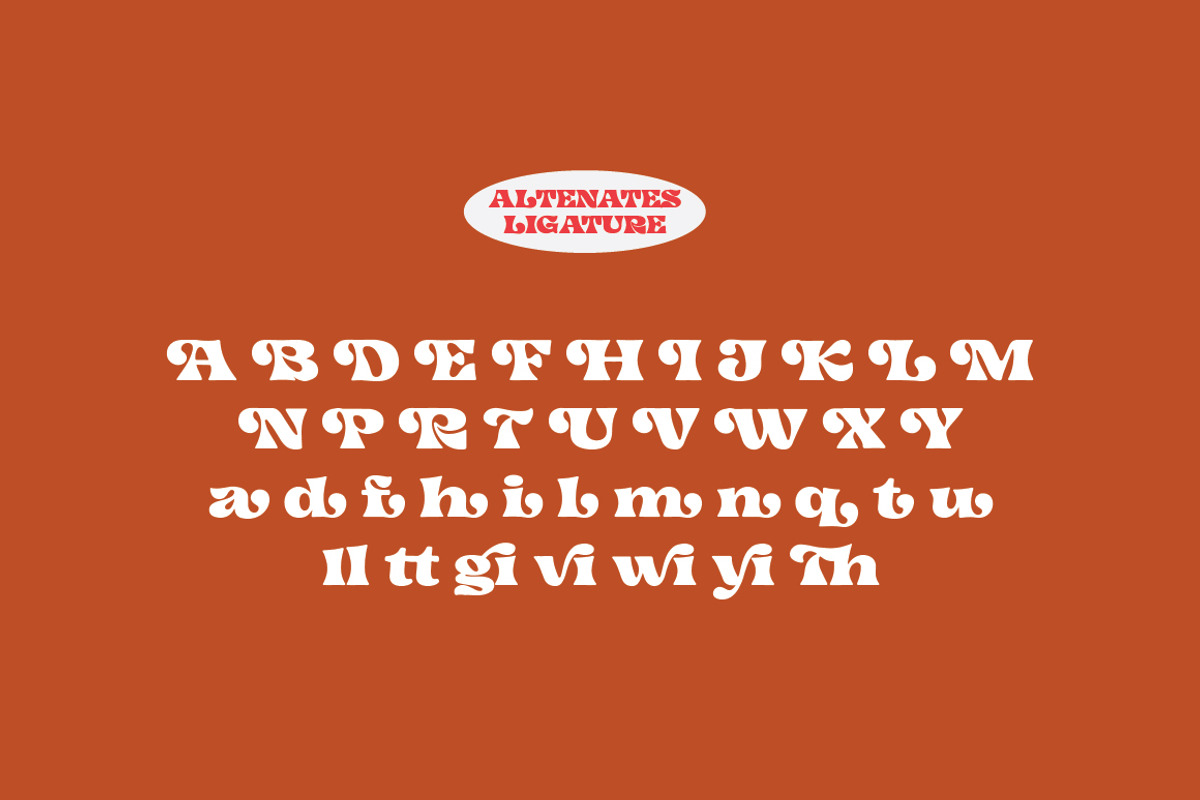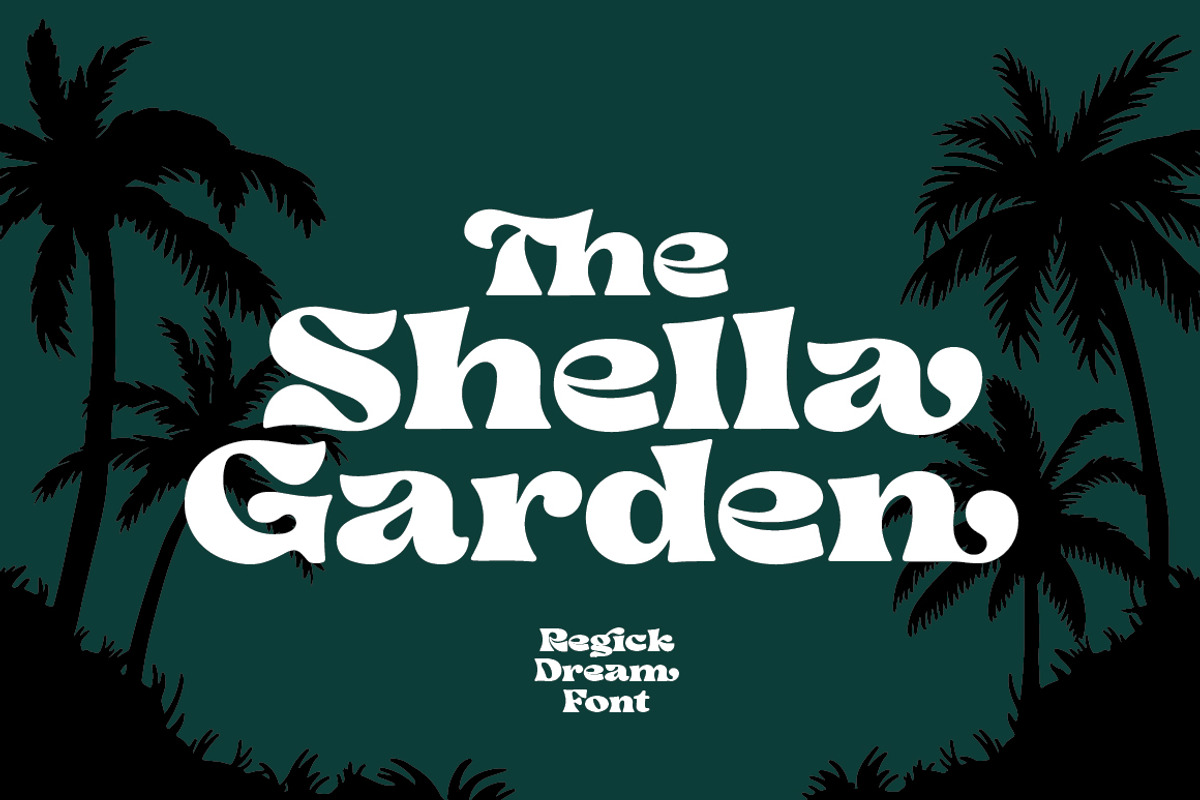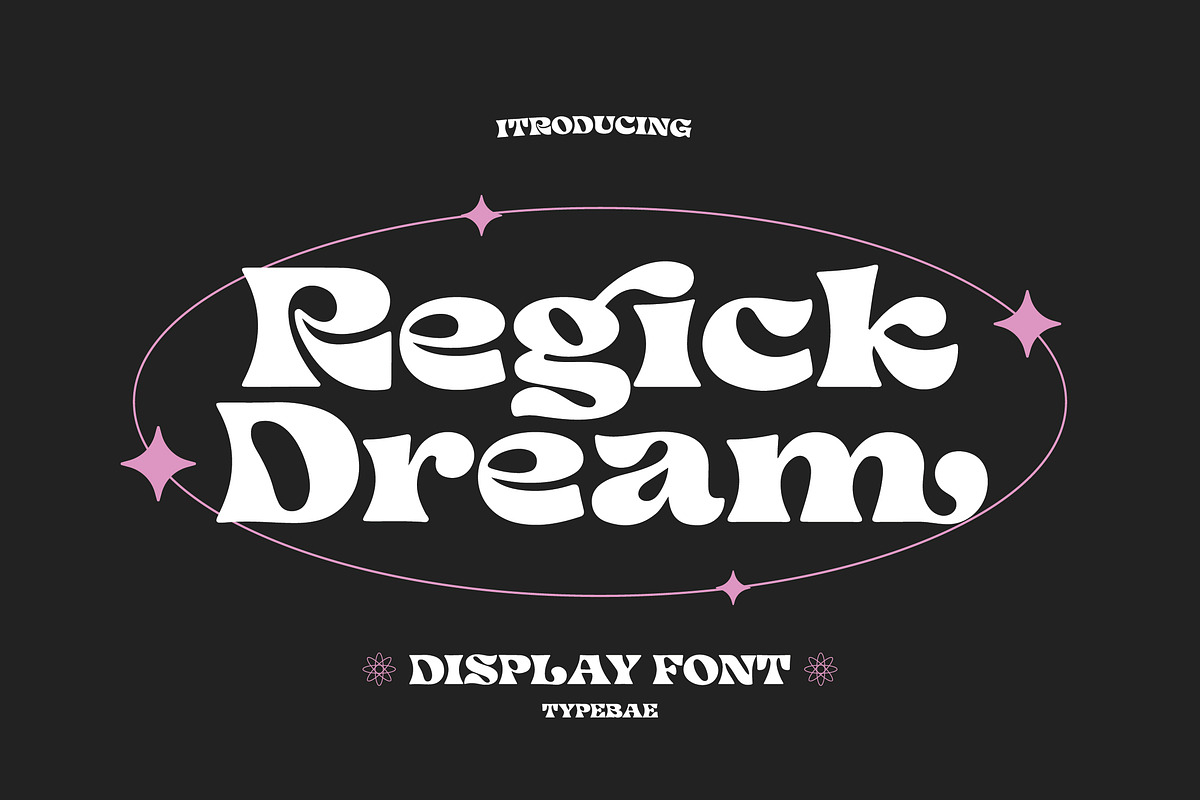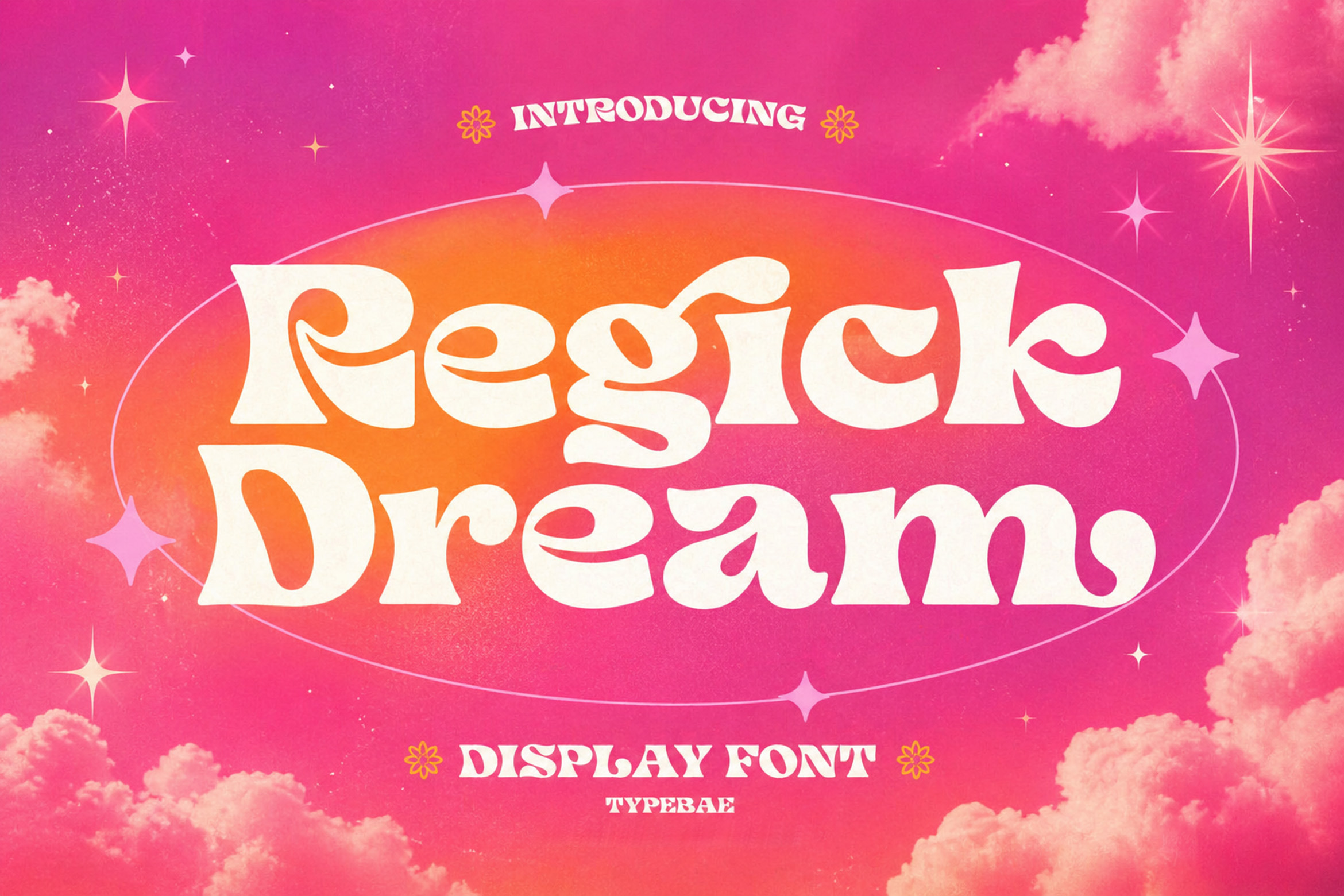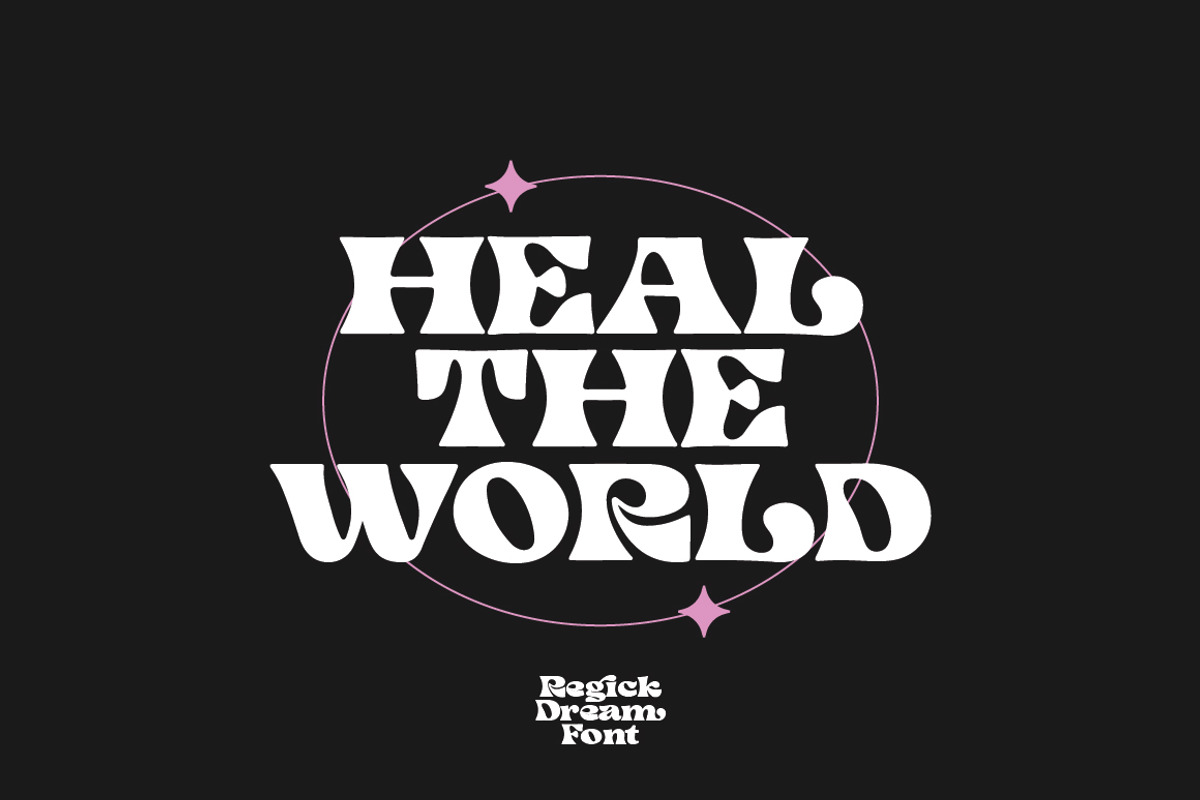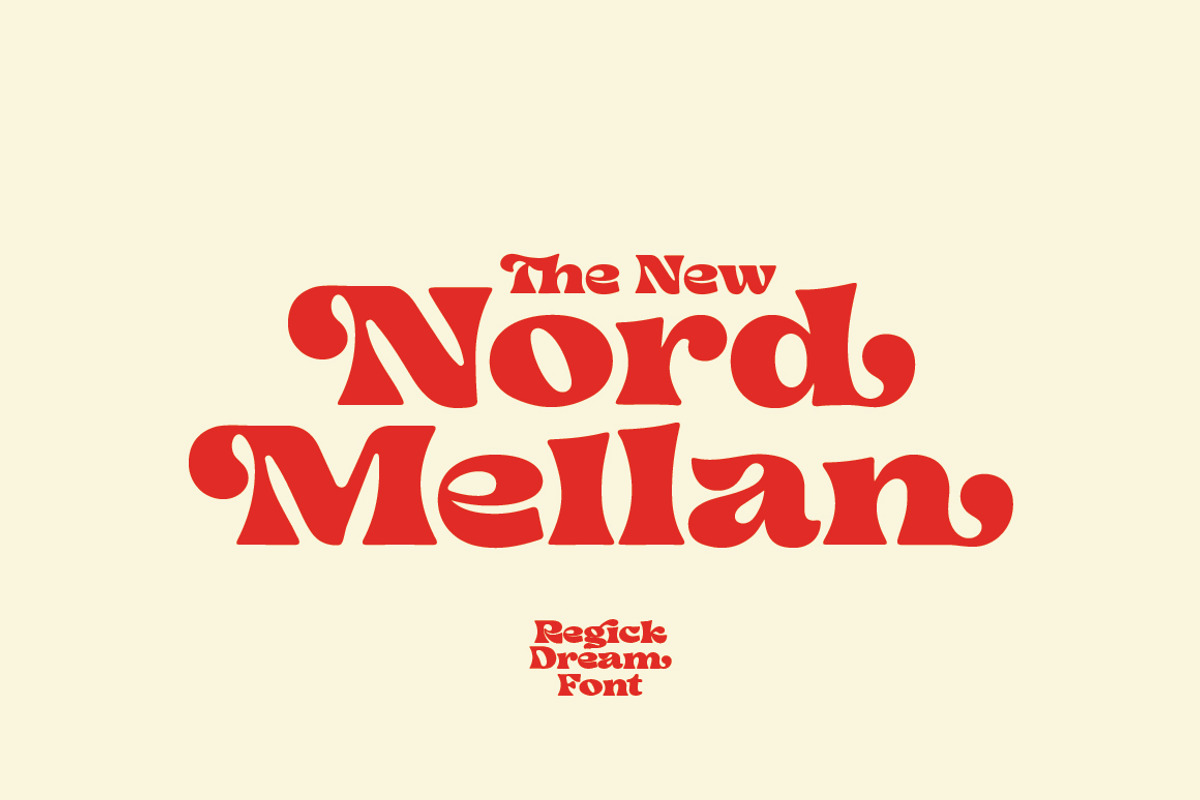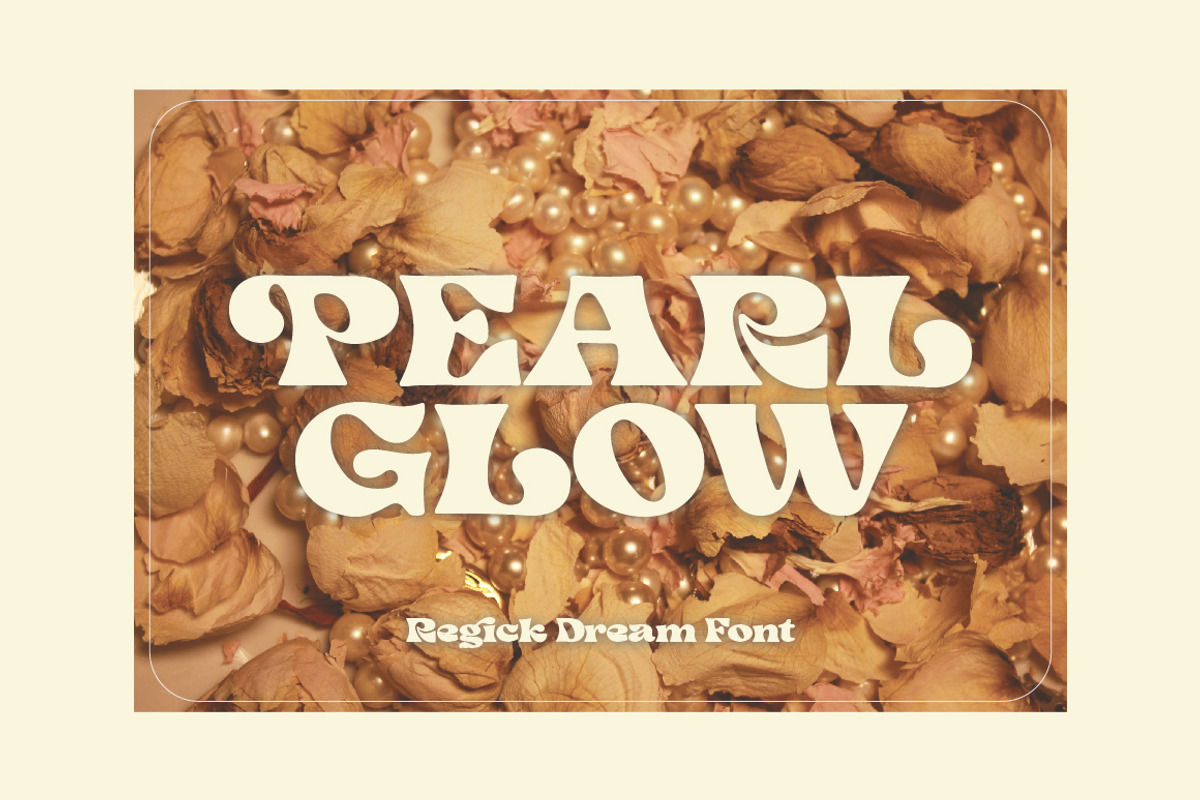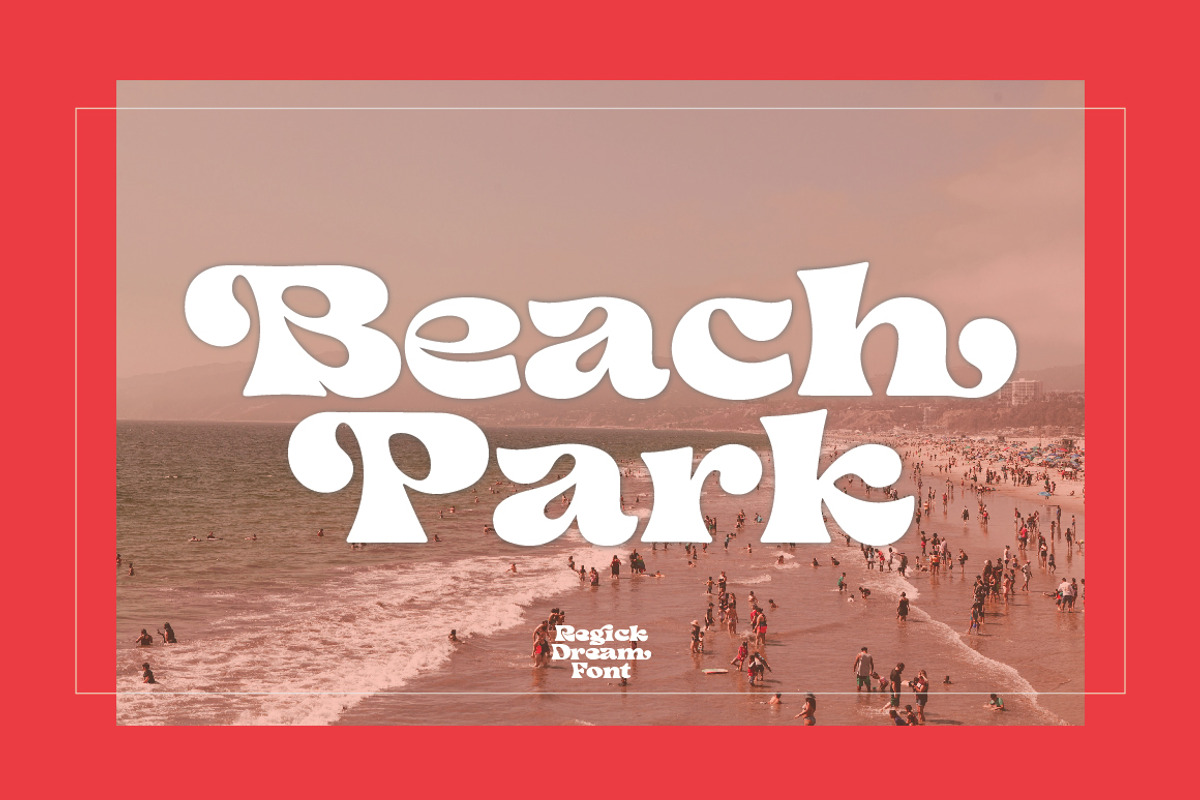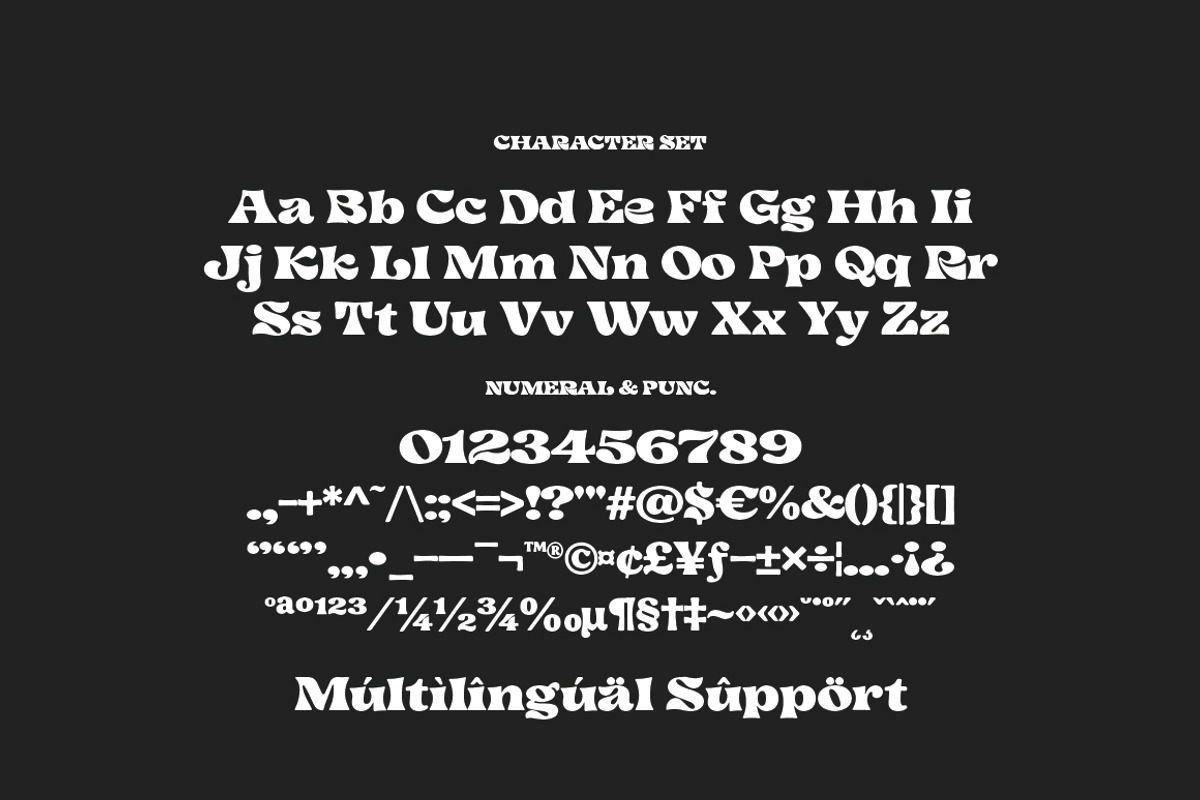
Regick Dream – Retro Display Font
Regick Dream is a bold display font inspired by retro psychedelic aesthetics and vintage editorial typography. Designed with soft curves, chunky letterforms, and playful rhythm, this font instantly creates an eye-catching and nostalgic atmosphere.
It comes with a rich set of stylistic alternates and ligatures, allowing you to explore unique letter combinations and create expressive, custom-looking typography effortlessly. Perfect for posters, branding, packaging, album covers, and social media visuals that need a strong visual identity.
Whether you want a groovy 70s feel or a modern retro look, Regick Dream gives you flexibility while keeping a distinctive personality.
Uppercase & lowercase
Numeral & Punctuation
Stylistic alternates & Ligatures